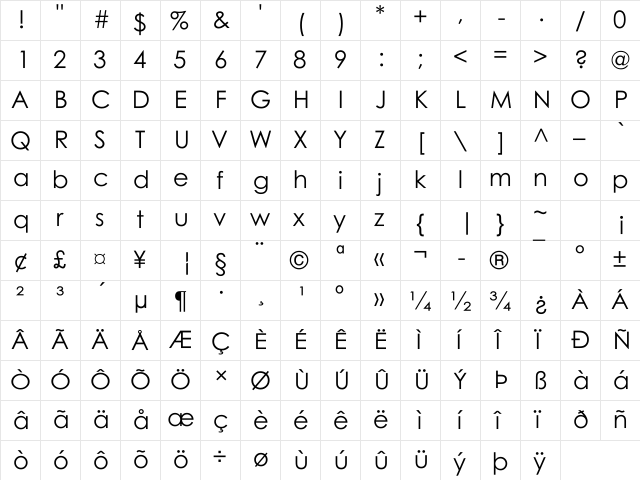
UKIJ Qolyazma Regular
| Foundry | Uyghur Computer Science Association |
| Designer | Adiljan Abliz (Uchqur) |
Design Context for UKIJ Qolyazma Typeface
UKIJ Qolyazma is a composed and adaptable typeface that performs quietly and consistently across a wide range of design contexts.